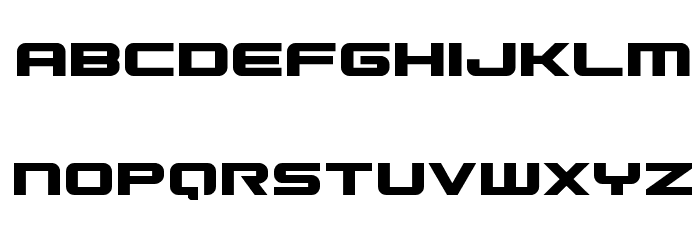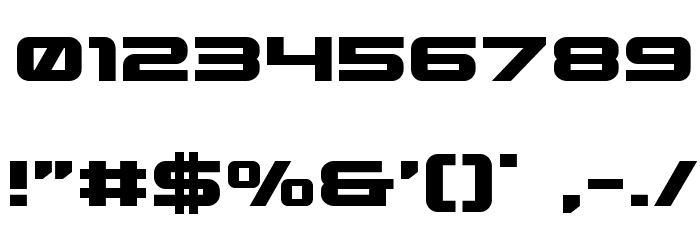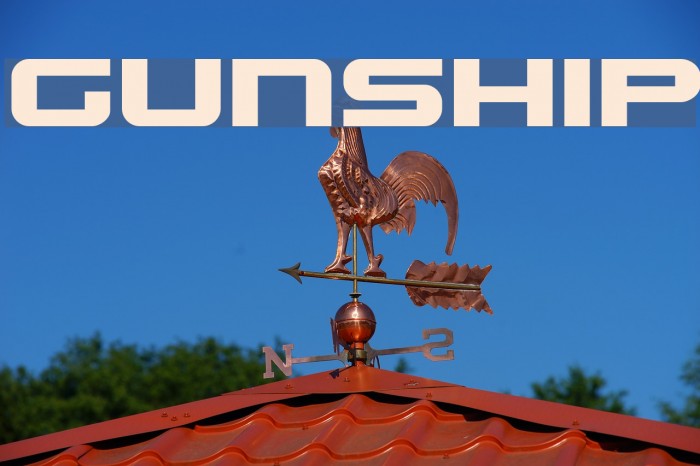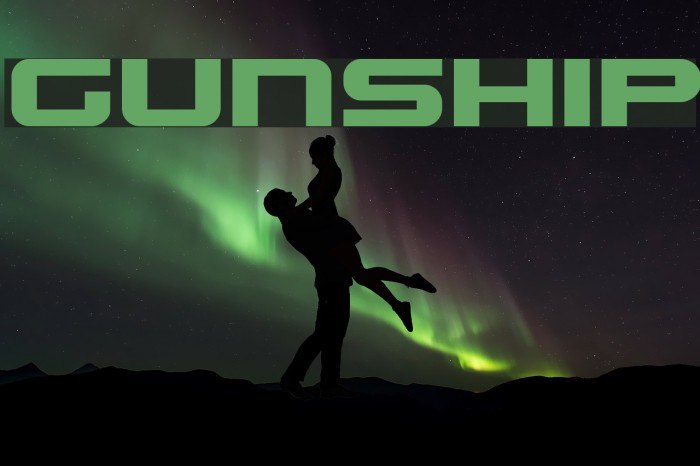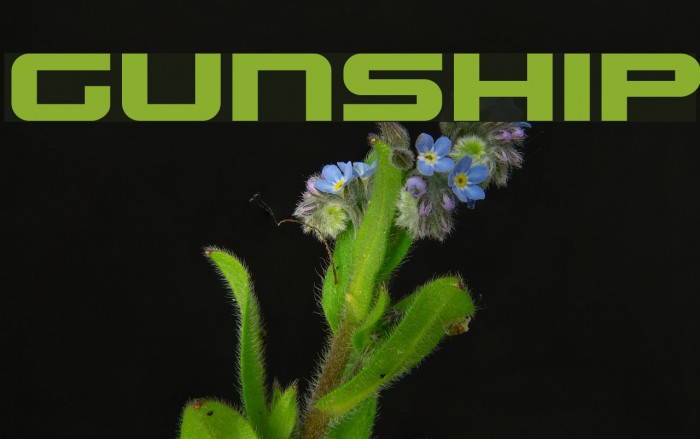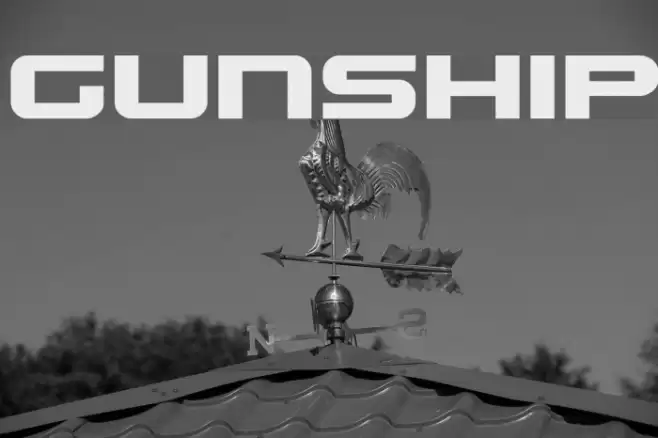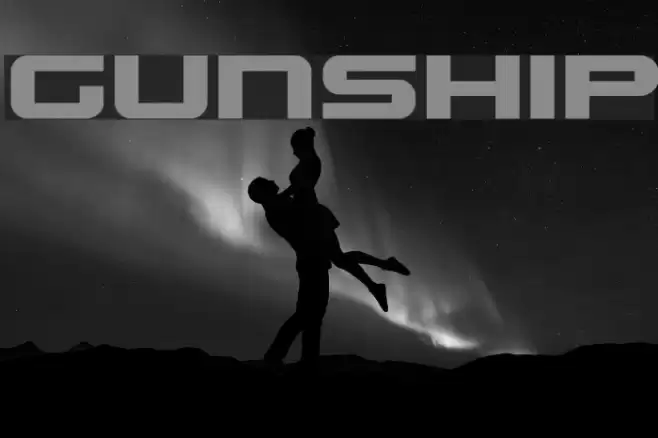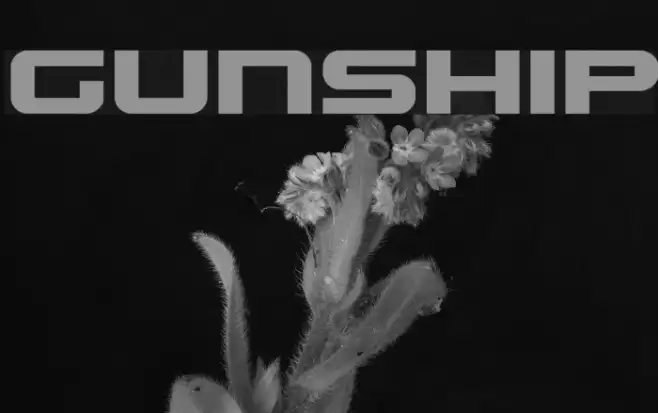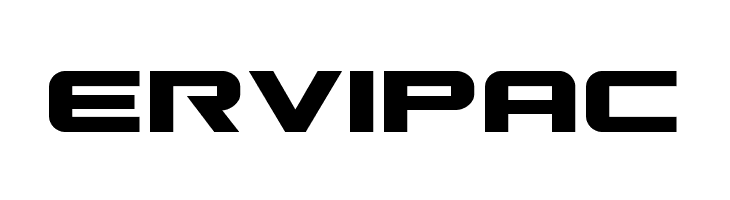
Gunship Font
This font features a bold and futuristic design with strong geometric shapes and a solid presence. The characters are constructed with a uniform thickness, giving a sense of stability and strength. The angular edges and squared-off forms contribute to a modern and industrial aesthetic, making it ideal for projects that require a tech-savvy or cutting-edge look. The font maintains a consistent weight throughout, ensuring readability while adding a distinctive style. Its clean lines and structured appearance make it suitable for various applications where a bold statement is needed.
A bold, futuristic font with geometric shapes and a modern, industrial aesthetic.
- Proposed Projects: Ideal for technology branding, video game titles, sci-fi movie posters, and modern product packaging.